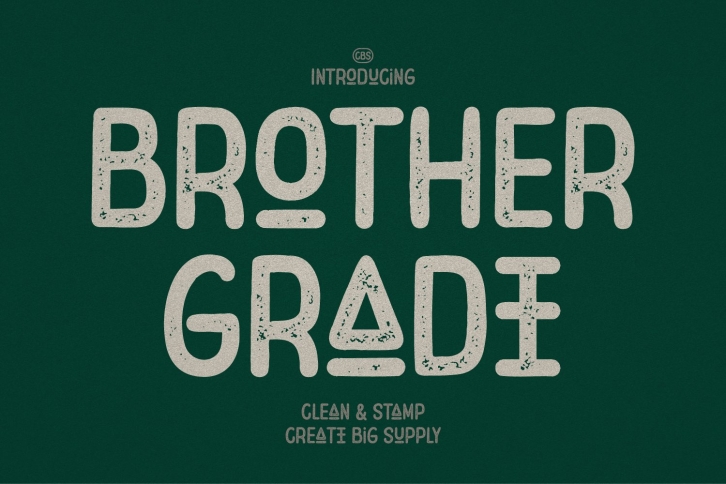
Brother Grade is a beautiful font that was designed by Create Big Supply. It's a great choice for designers and creatives who need such a font. It was released on December 5, 2021 and the file size is 15.46 MB. Brother Grade may give a more youthful, expressive and casual look to your project. It is a very beautiful, refined, elegant, and high-quality font.